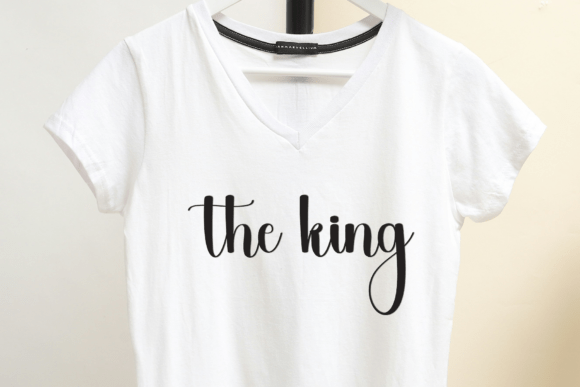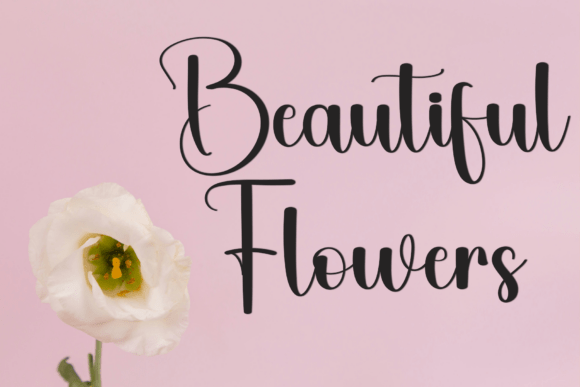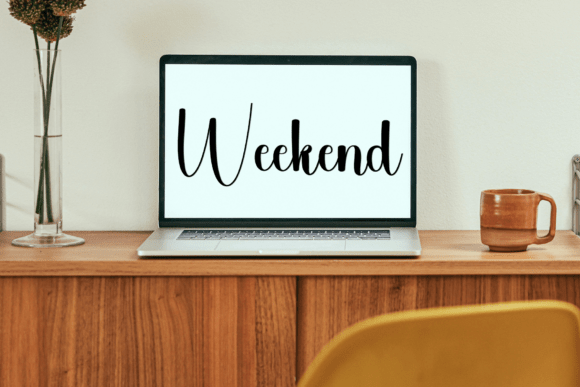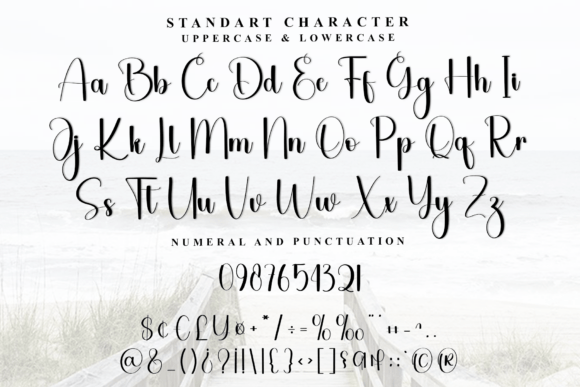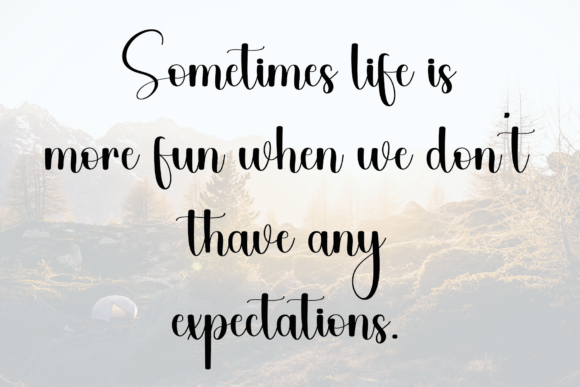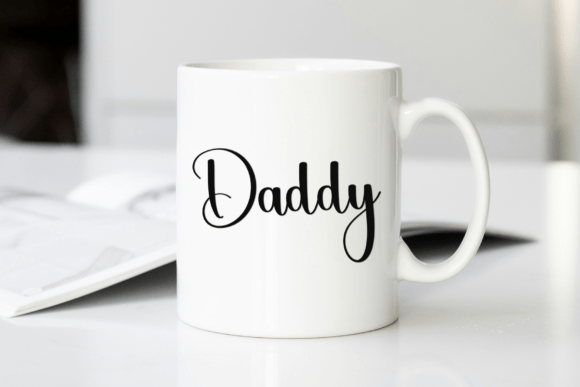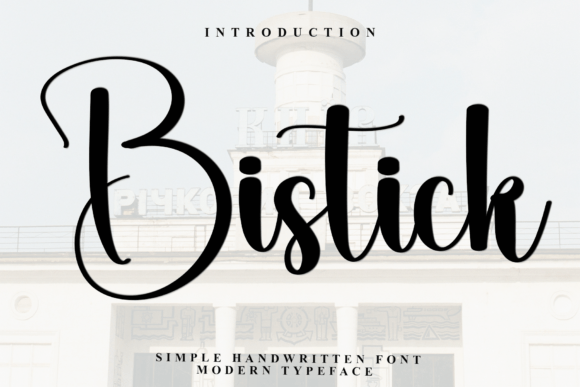
Bistick Font: A Timeless Handwritten Font for Creative Designs
Are you a designer or crafter looking for a unique and beautiful font to elevate your creative projects? Look no further than Bistick Font, a lovely and timeless handwritten font that is perfect for creating eye-catching logos, branding, and quotes.
What is Bistick Font?
Bistick Font is a carefully crafted handwritten font that boasts a distinctive and elegant style. Each letter has a unique and beautiful touch, which sets it apart from other fonts and makes it a standout choice for designers and crafters. Whether you’re looking to create a logo, branding materials, or inspirational quotes, Bistick Font is the perfect choice.
Key Features of Bistick Font
- Unique and Beautiful Touch: Every letter in Bistick Font has a distinctive and beautiful touch that will make your design come alive.
- Timeless Style: Bistick Font has a timeless quality that ensures it will remain stylish and relevant for years to come.
- Handwritten Elegance: The font’s handwritten elegance makes it perfect for creating logos, branding materials, and quotes that require a personal touch.
- Ease of Use: Bistick Font is easy to use and can be easily integrated into your design projects.
Why Choose Bistick Font?
So, why choose Bistick Font for your design projects? Here are just a few reasons:
- Stand Out from the Crowd: Bistick Font’s unique and beautiful style ensures that your designs will stand out from the crowd and grab attention.
- Perfect for Logos and Branding: The font’s elegant and timeless style makes it perfect for creating logos and branding materials that require a professional and sophisticated look.
- Easy to Read: Despite its elegant style, Bistick Font is easy to read, making it perfect for creating quotes and other text-based designs.
- Versatile: Bistick Font can be used for a wide range of design projects, from logos and branding to quotes and more.
Here are a few tips and tricks for designers and crafters looking to get the most out of Bistick Font:
- Pair with Other Fonts: Pair Bistick Font with other fonts to create a unique and interesting contrast.
- Use for Quotes: Use Bistick Font to create inspirational quotes and sayings that are sure to grab attention.
- Try it for Logos: Try using Bistick Font to create logos and branding materials that require a professional and sophisticated look.
In conclusion, Bistick Font is a lovely and timeless handwritten font that is perfect for designers and crafters looking to create eye-catching logos, branding, and quotes. With its unique and beautiful touch, timeless style, and ease of use, Bistick Font is the perfect choice for anyone looking to elevate their design projects. So why wait? Download Bistick Font today and start creating stunning designs that are sure to grab attention!